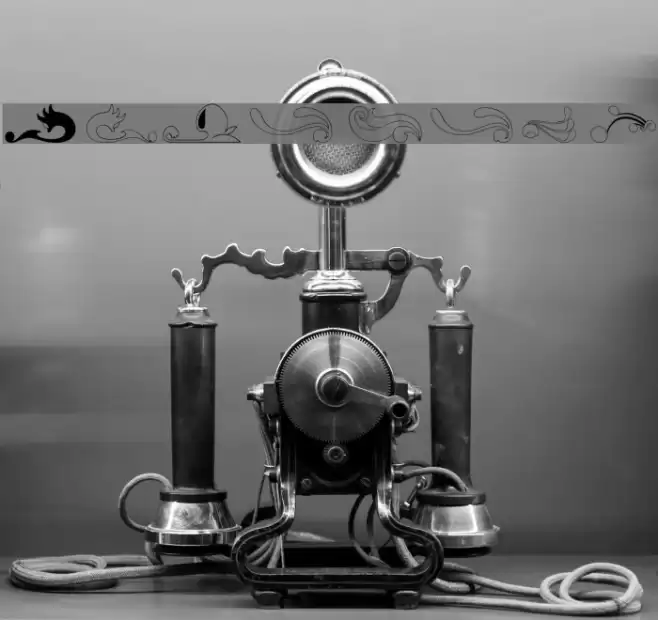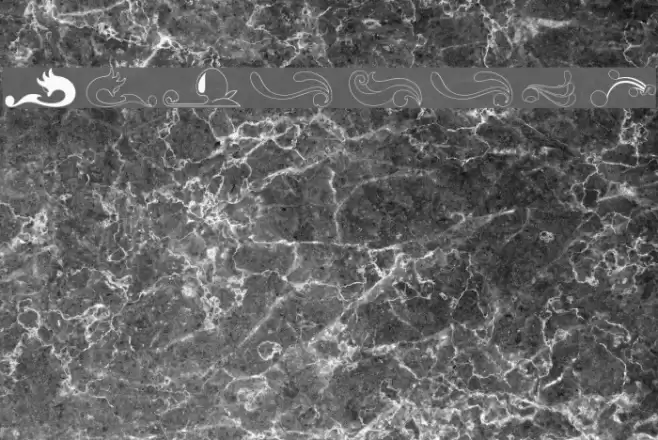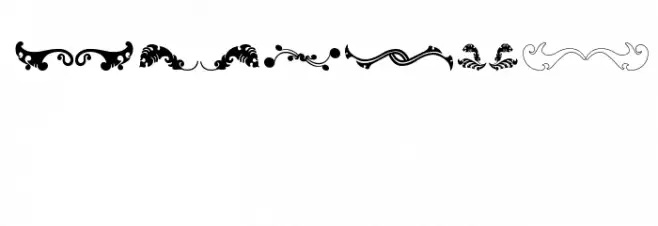
Felicity Font
Felicity Description
A highly decorative and ornate set of typographic ornaments and flourishes, featuring intricate swirls, curls, and floral motifs in both bold and thin line styles. The designs vary from solid black to delicate outlines, offering a range of visual weights and complexities.
Ornate decorative flourishes with varying weights and intricate details from Uncategorized fonts.
- Proposed Projects: Wedding invitations, certificates, vintage-themed branding, book covers, decorative borders, and ornamental dividers.
- Overall Style: Vintage, Decorative
- Use Case: Borders, Dividers, Decorative accents